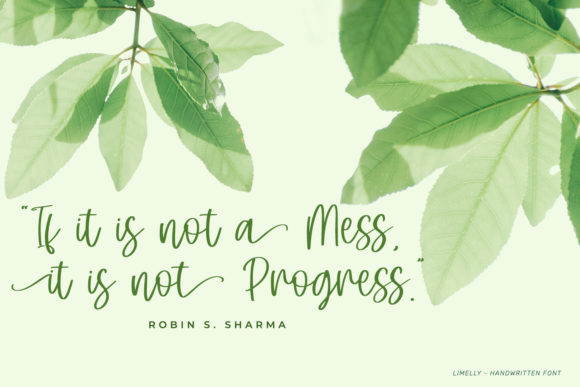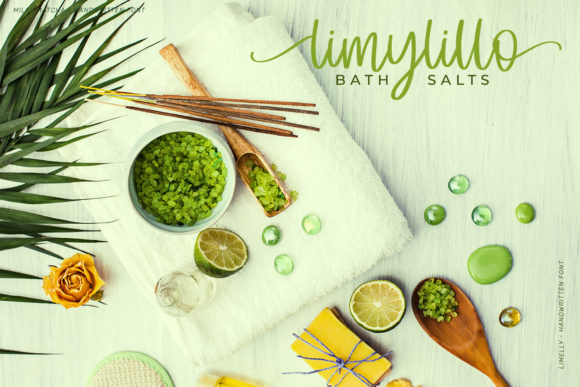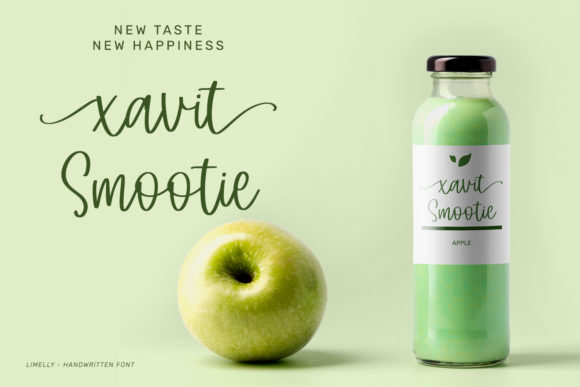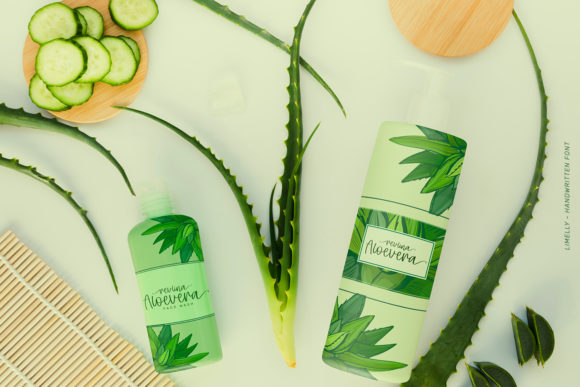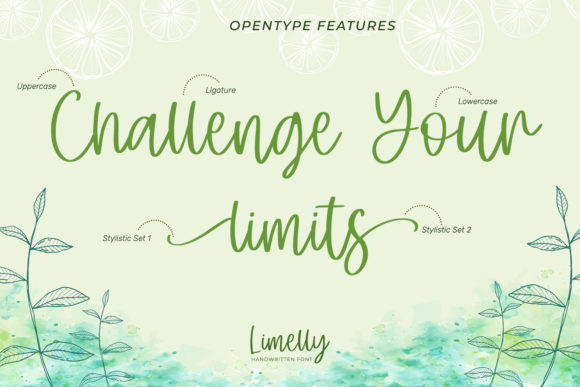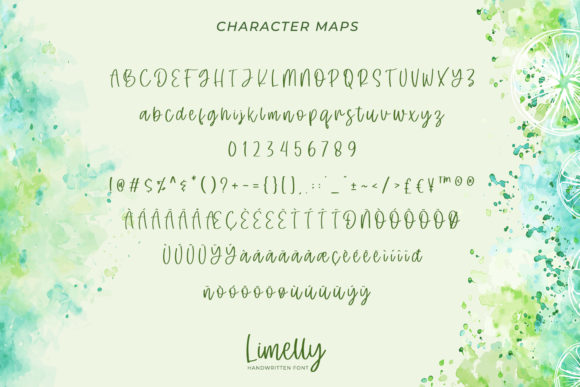
Introduction to Limelly Font
Limelly is an elegant handwritten font made for any professional project branding.
It is the best for logos, branding, quotes and more This font is PUA encoded which means you can access all of the glyphs and swashes with ease.
Limelly Font offers exceptional quality and versatility, making it a valuable addition to your design toolkit. Whether you’re creating for personal projects or commercial use, Limelly Font delivers professional results.